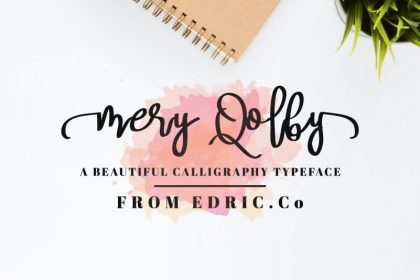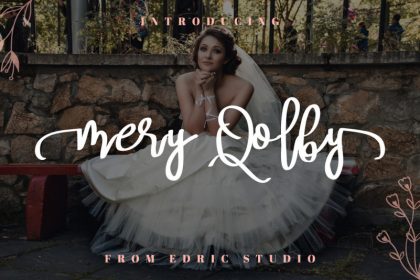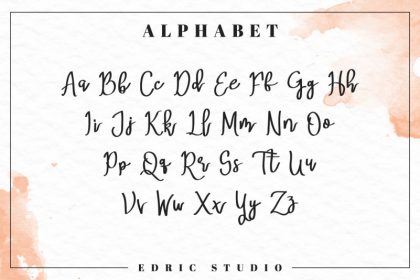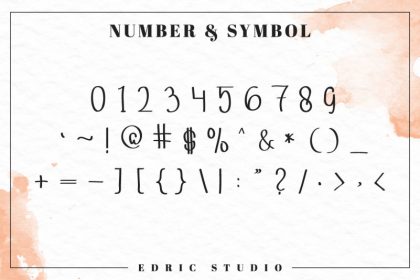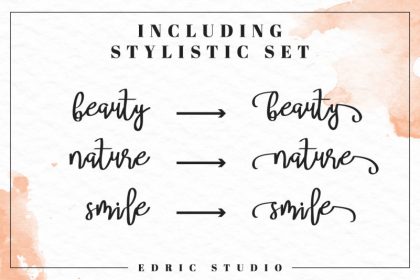
MeryQolby Script Font
MeryQolby Script Font is a handmade lettering font. it’s great for many cases : logotype, flyer, brochure, letterhead, branding, business card, etc. There are many industries that will be suit with this font: florist, makeup artist, retail, boutique, fashion, lawyer, sales, photographer etc
MeryQolby Script Lettering Font